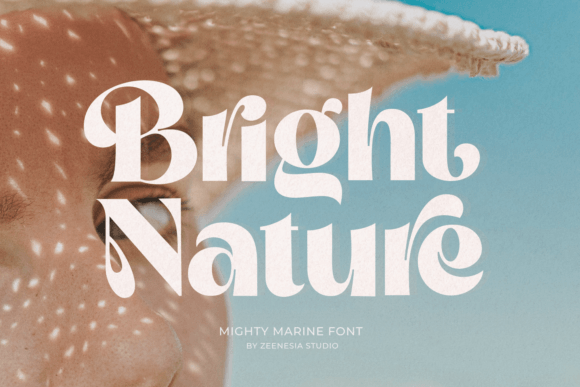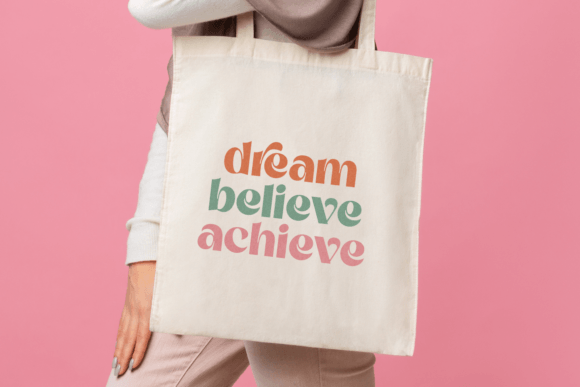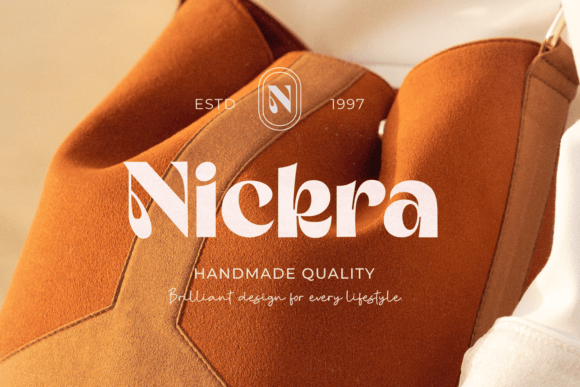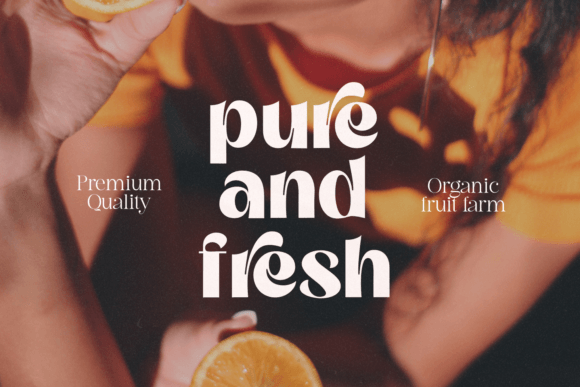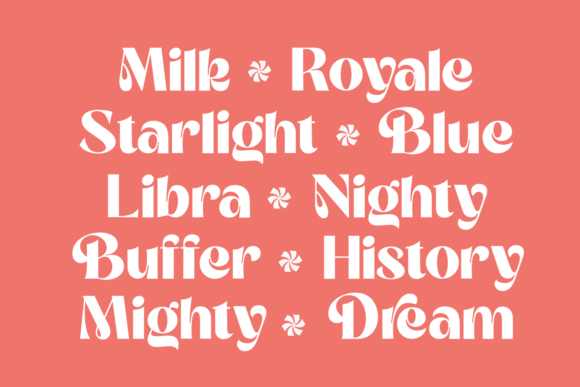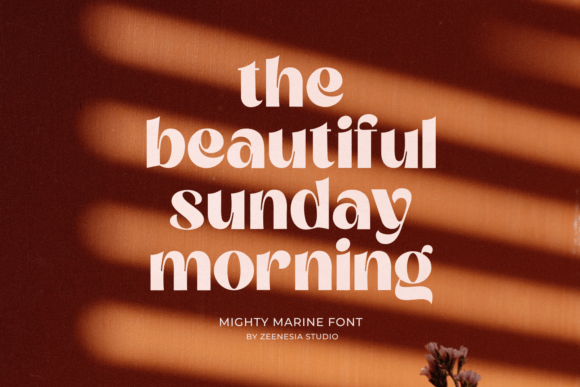
Introduction to Mighty Marine Font
Have you ever been stuck in front of a blank canvas, searching for the perfect font to bring your creative vision to life? As a designer, you know that the right typeface can make all the difference between a project that shines and one that falls flat. That’s where the Mighty Marine Font comes in – a game-changing, vintage-inspired serif typeface that’s sure to elevate your creative project to new heights.
This high-quality design resource is more than just a pretty face – it’s a powerful tool that will help you make a statement in your work. With its seamless blend of classic and contemporary design elements, the Mighty Marine Font is perfect for designers who want to add a touch of elegance and sophistication to their projects. Whether you’re working on a logo, web design, or product packaging, this font is sure to impress.
Key Features of Mighty Marine Font
- High-quality, vector-based font suitable for creative projects and designs.
- Transparent background allows for seamless integration into any design resource.
- Includes a range of styles and weights, perfect for adding depth and variety to your design.
- Perfect for use in logos, branding, and other design elements where a unique, bold font is required.
Honest Review: Mighty Marine Font
I recently stumbled upon the Mighty Marine Font and was excited to give it a try. As a designer, I’m always on the lookout for high-quality design resources to enhance my creative projects.
What works well: ✨ The font has a modern, nautical-inspired aesthetic that’s perfect for any project related to the ocean or coastal living. The font is also highly customizable, with a transparent background option that makes it easy to use on any design surface. The free download option is a bonus, as it allows me to experiment with the font without committing to a purchase.
Limitations: ⚠️ While the font is well-designed, it’s not suitable for complex, multi-line text. The font’s nautical theme may also be too niche for some designers, limiting its versatility.
Here are some key features of the Mighty Marine Font:
- Modern, nautical-inspired design
- Perfect for ocean or coastal living-related projects
Overall, I’m impressed with the Mighty Marine Font. While it may have some limitations, it’s a great addition to any designer’s toolkit. I’d recommend it to anyone looking for a unique, high-quality font for their next creative project.
Mighty Marine Font
To get the most out of the Mighty Marine Font, use it in conjunction with other design elements, such as images and graphics. Experiment with different font sizes and colors to create a visually appealing design.
The Mighty Marine Font is perfect for a variety of creative projects, including:
- Posters and advertisements
Alternatives to Mighty Marine Font
Pacifico is a beautiful script font perfect for creative projects that require a touch of elegance and sophistication. It’s a great choice for designs that need a high-quality, cursive font with a transparent background. When to use: wedding invitations, branding materials, and creative brochures. Compared to Mighty Marine Font, Pacifico has a more refined and delicate feel, making it suitable for more formal designs.
Great Vibes is a fun and energetic font ideal for designs that need a playful and modern touch. It’s a great design resource for creative projects that require a high-quality, sans-serif font with a free download option. When to use: social media graphics, advertisements, and promotional materials. Compared to Mighty Marine Font, Great Vibes has a more modern and edgy feel, making it suitable for designs that require a bold statement.